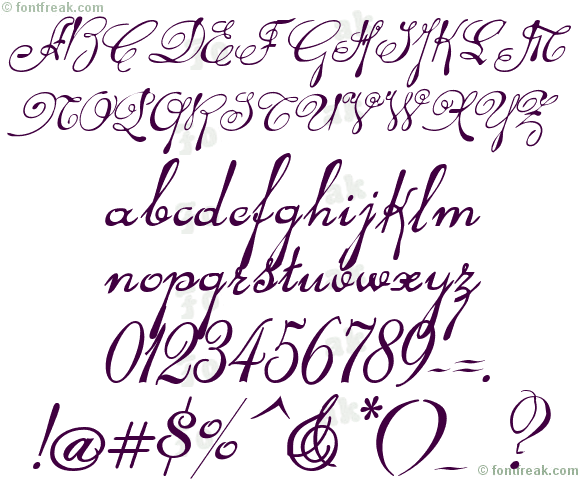
Rhalina Expanded Italic
Rhalina Expanded Italic, designed by Daniel Zadorozny in 2009, is a striking display font that falls under the category of cursive script. This font showcases an elegant, flowing style characterized by its fluid strokes and graceful lines. The expanded italic nature of Rhalina lends it a unique presence, making it an excellent choice for designs that require a touch of sophistication. The stroke weight is light to medium, providing a delicate appearance while maintaining readability. The generous spacing between the characters enhances its legibility, making it suitable for various applications.
This font is particularly well-suited for wedding invitations, where its romantic flair can beautifully convey heartfelt messages. Additionally, it serves as an attractive choice for movie posters, where the intertwining letters can capture attention and evoke emotion. Restaurant menus can also benefit from Rhalina's elegant aesthetic, presenting dishes in a way that feels both inviting and upscale. Furthermore, it can be utilized in branding materials for boutique businesses looking to establish a chic identity.
Target audiences for Rhalina Expanded Italic include graphic designers, small business owners, and content creators who seek to elevate their work with a touch of elegance. Its unique style appeals to those wanting to make a memorable impression, whether in print or digital formats.
What sets the Rhalina Expanded Italic font apart is its combination of elegance and versatility. The fluidity of the design allows it to adapt to various contexts while maintaining a sophisticated charm. For those looking for a font that embodies grace and creativity, the Rhalina Expanded Italic font free download offers a perfect solution for enhancing visual storytelling in any project.